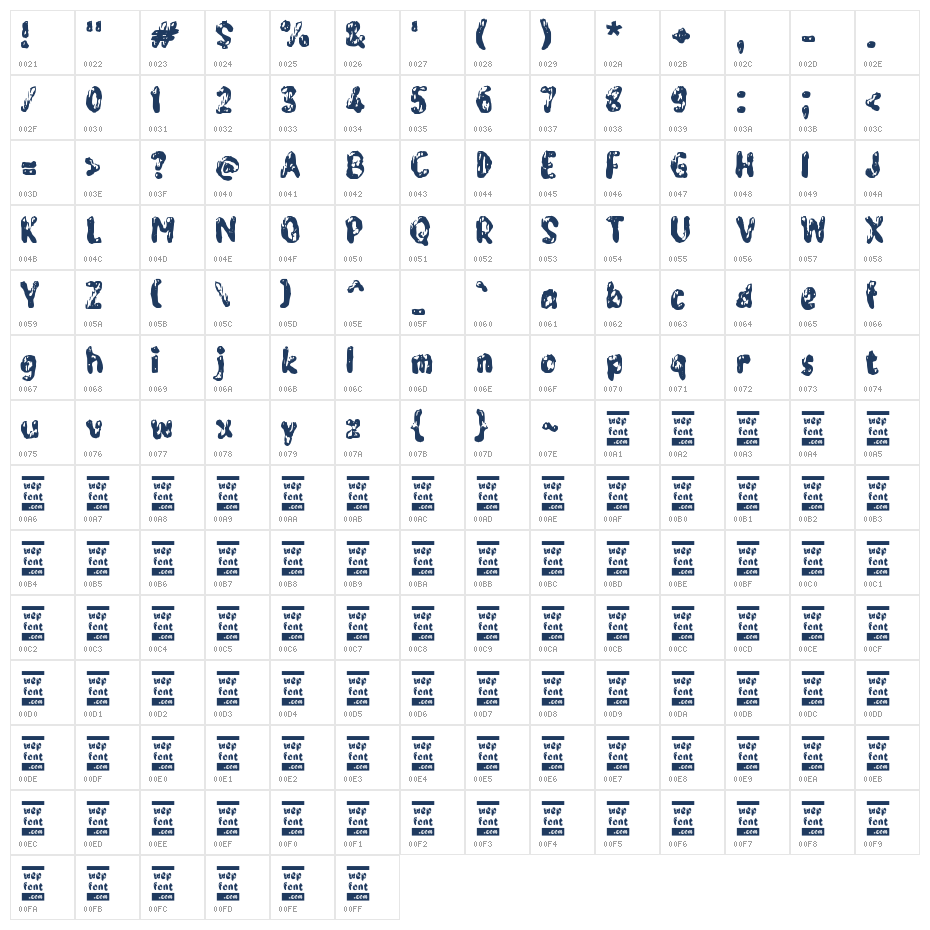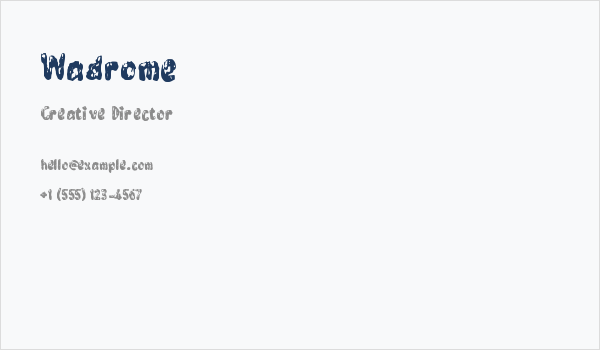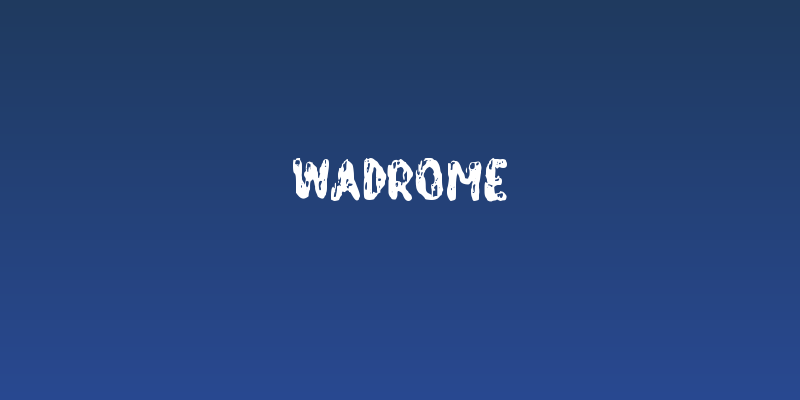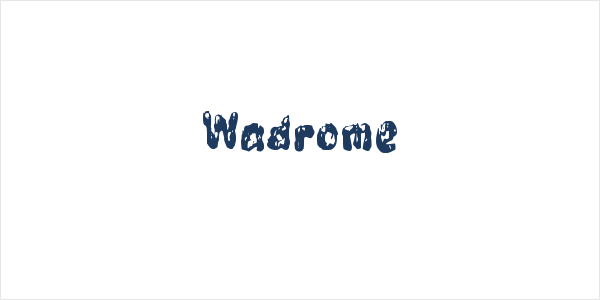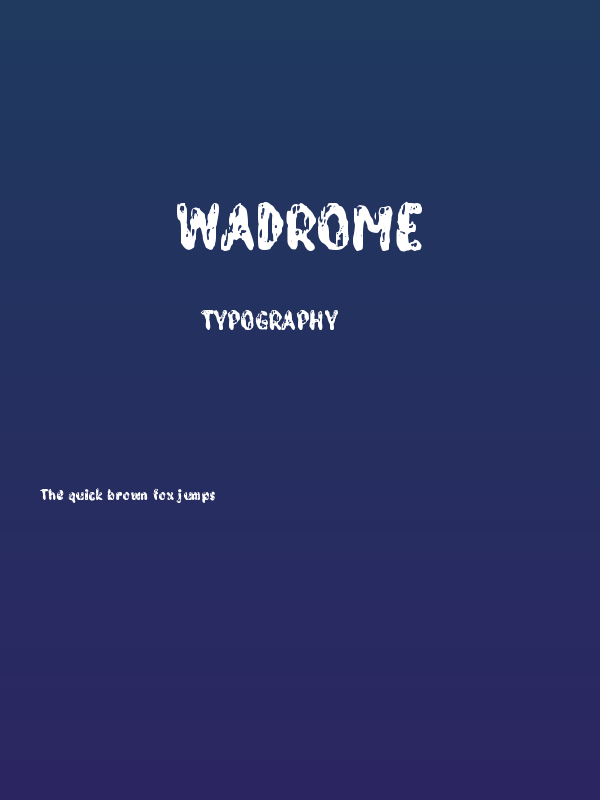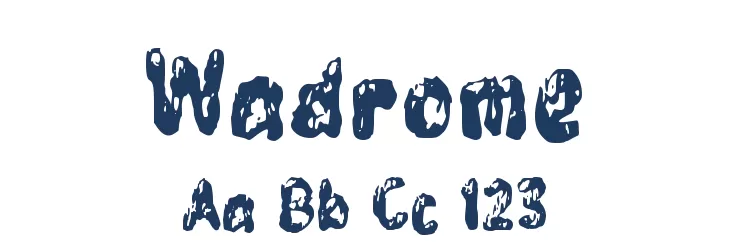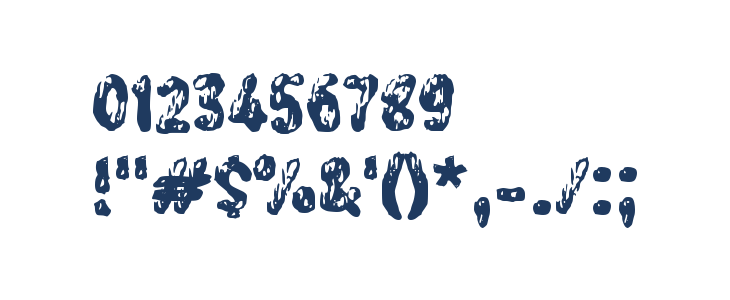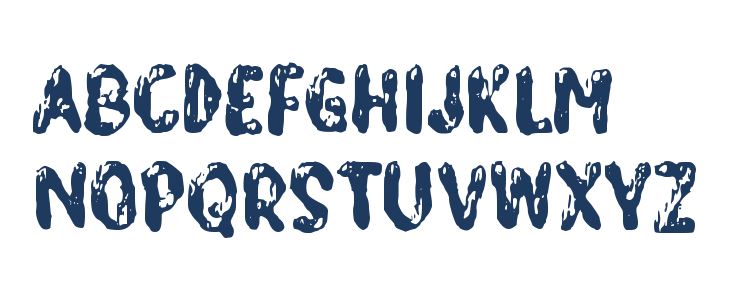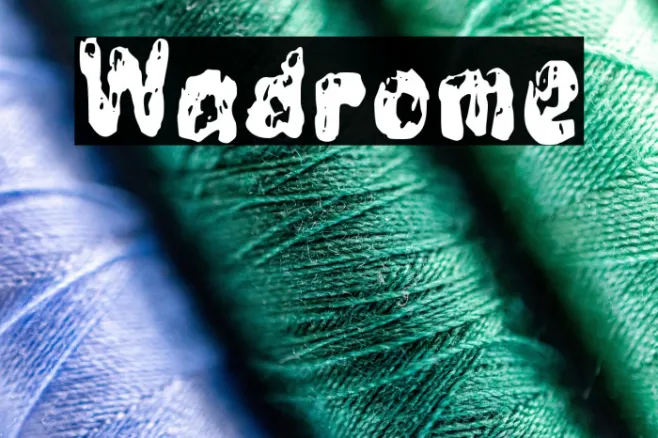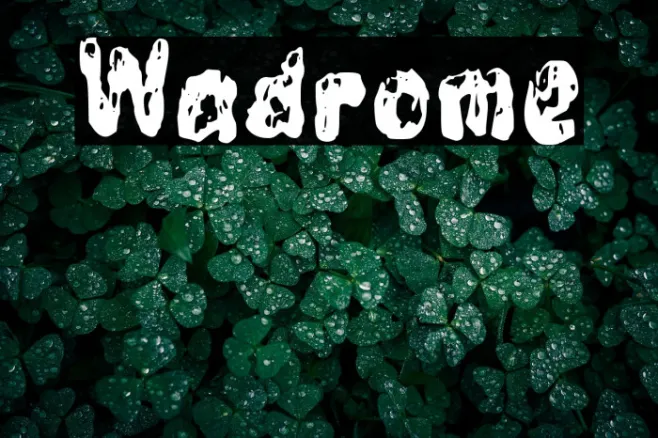
Wadrome Font
Wadrome Description
A decorative, distressed, and textured font with a playful, grunge style. It features irregular edges and a rough appearance, giving it an artistic and informal look.
| Overall Style | Grunge, Artistic, Playful |
| Use Case | Headlines, Posters, Album Covers, Creative Branding |